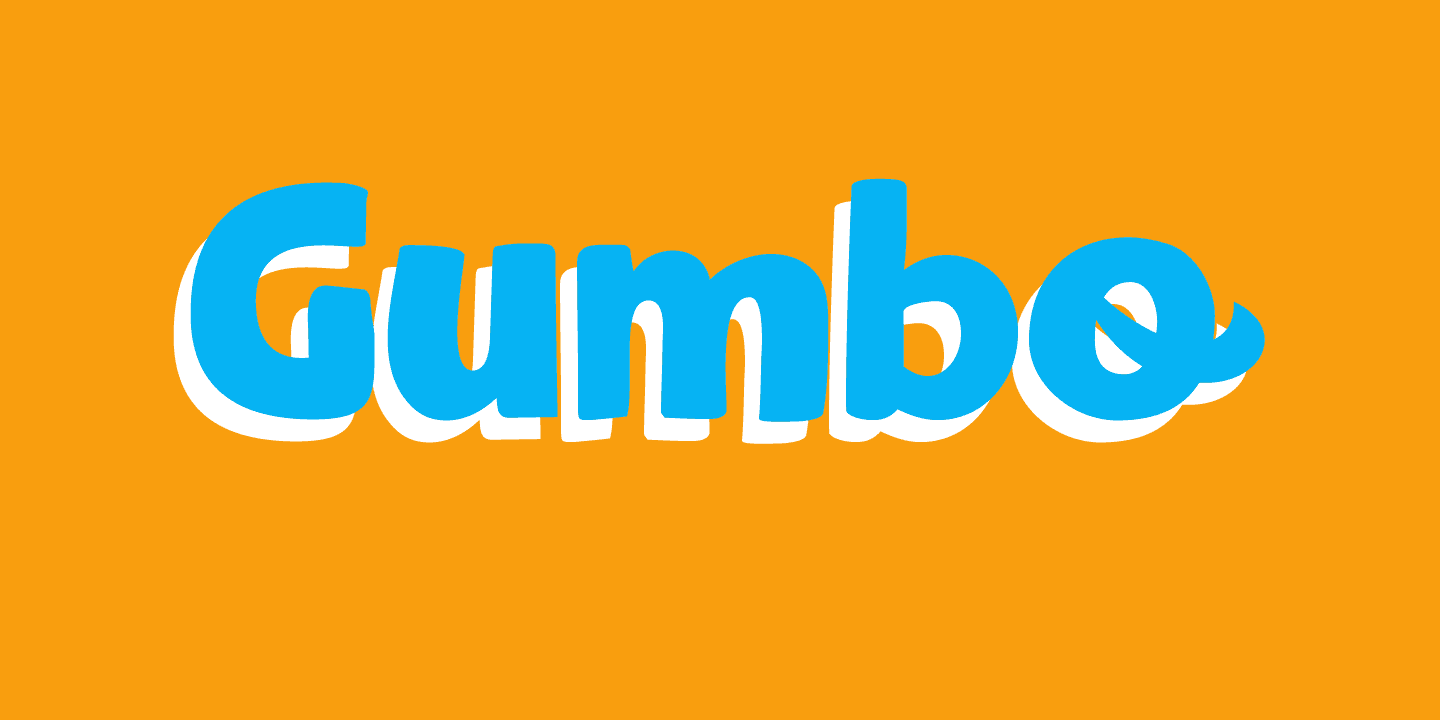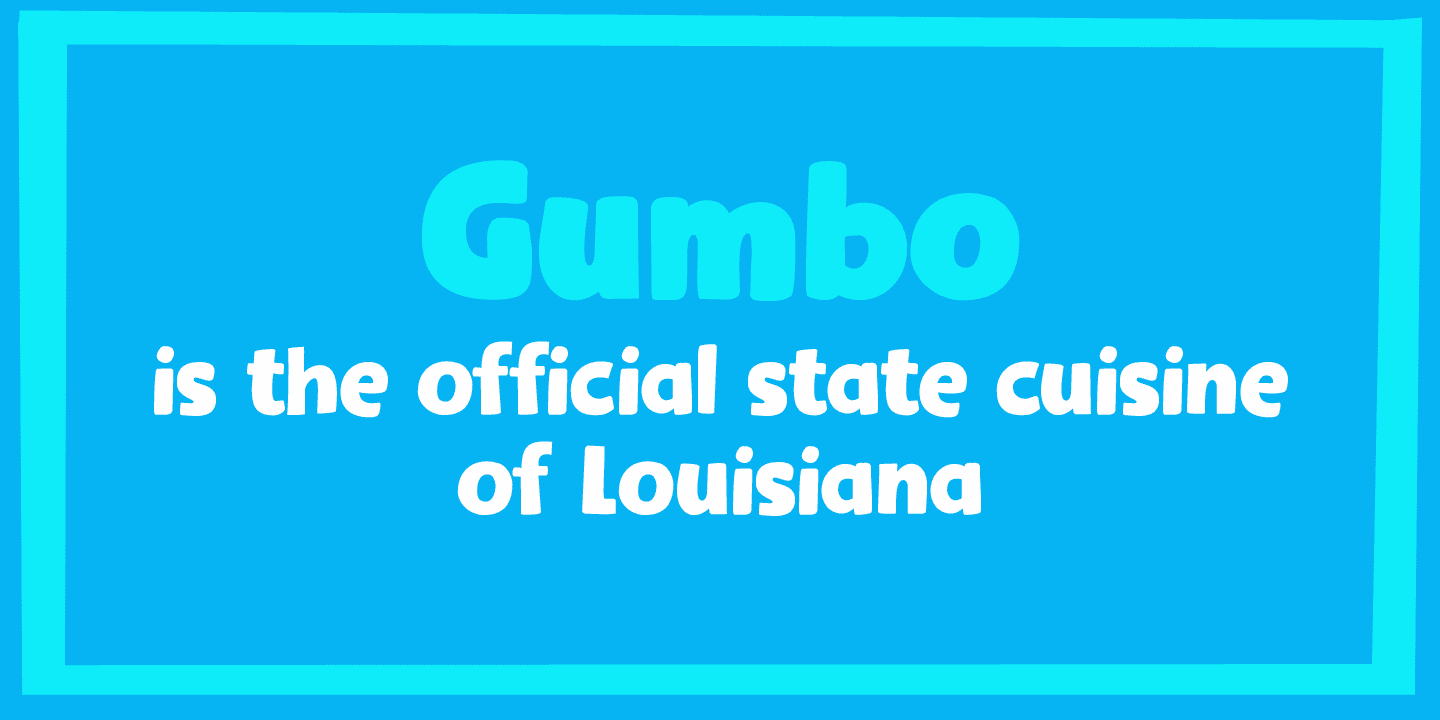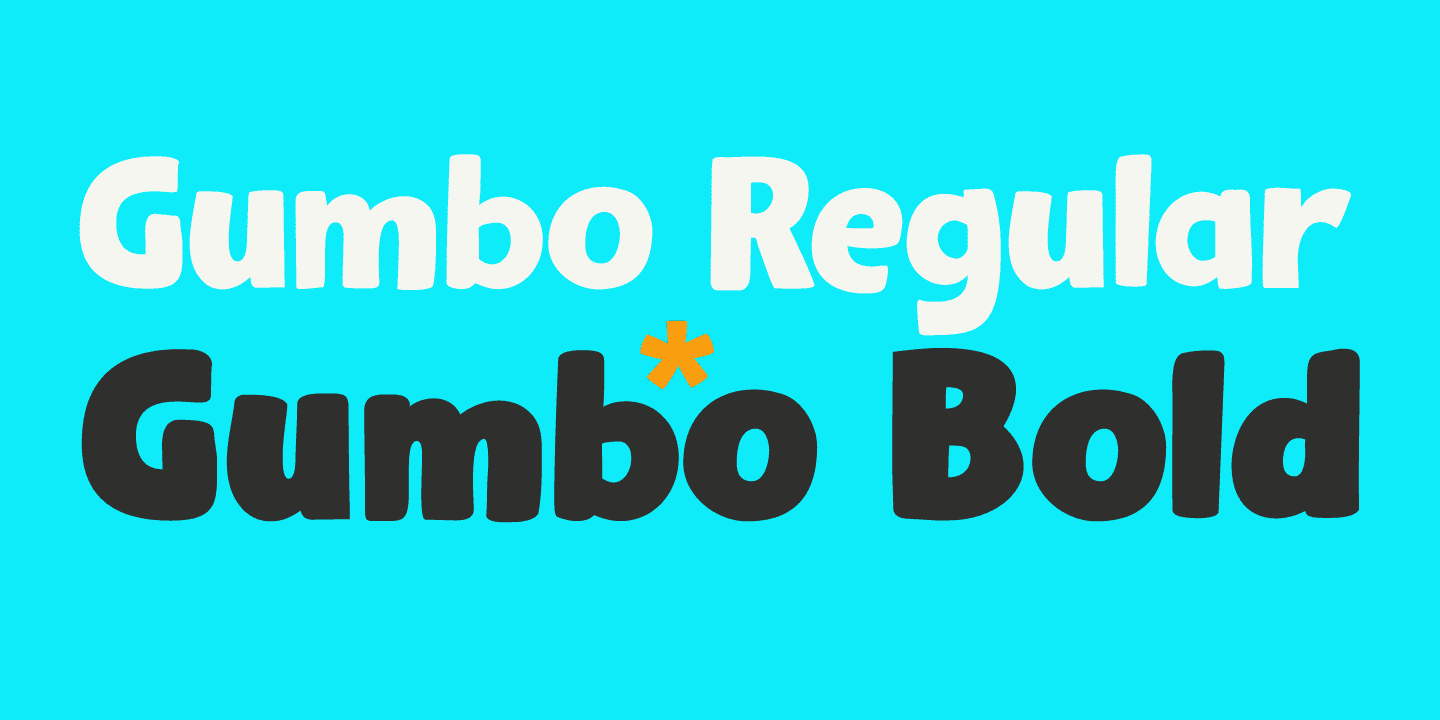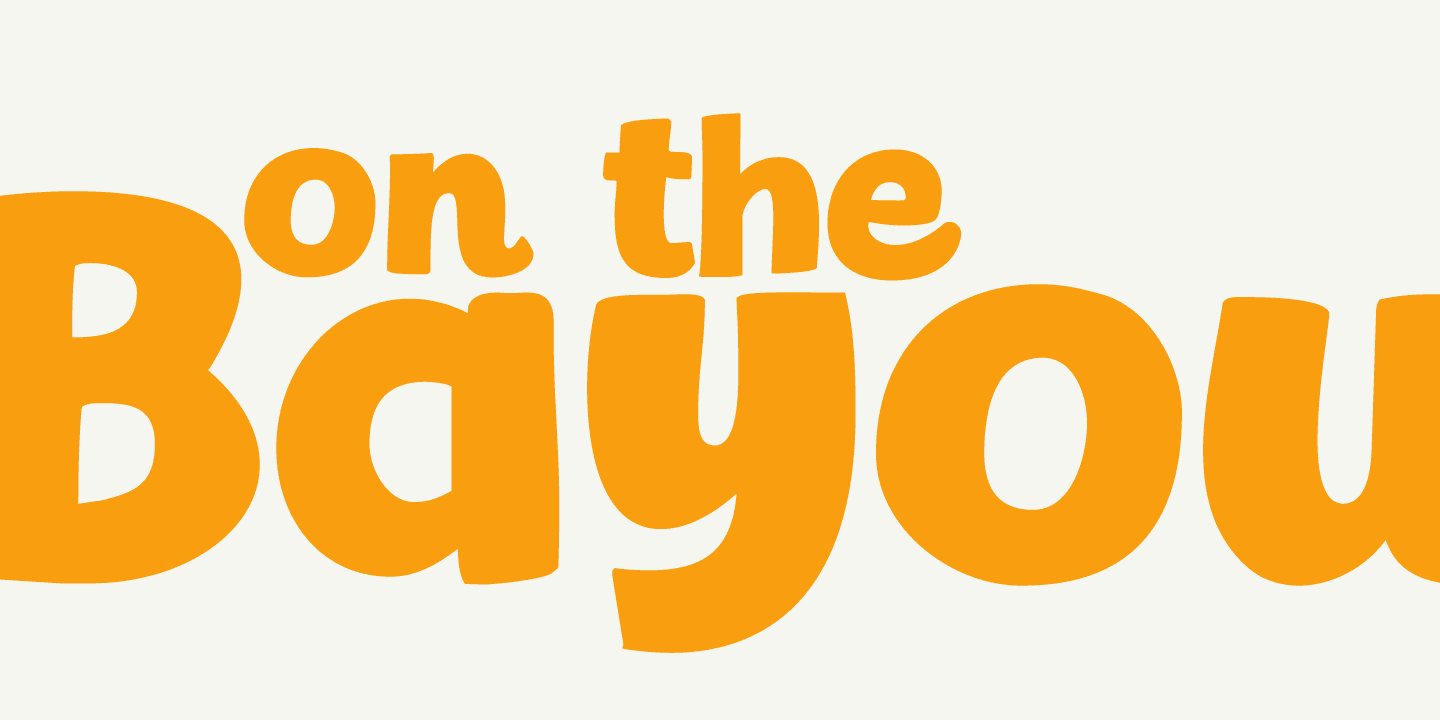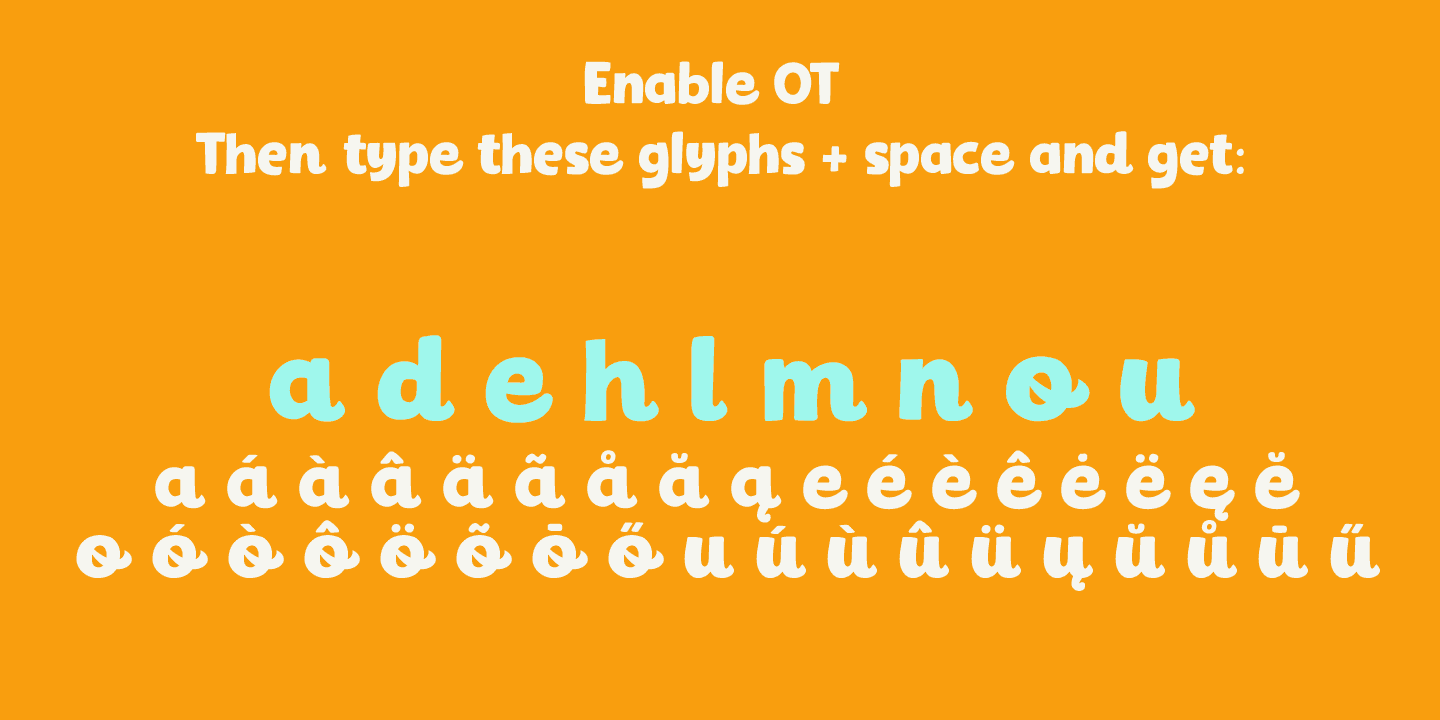
When I created this font, I had to think of Gumbo - a dish I have never made. Gumbo is a handmade display font that comes in a rotund regular and an obese bold (with Italics). Use it for your book covers, product packaging and sticky notes. Gumbo comes with cute ‘end of word’ ligatures - just type the glyph + space and presto: you have a little swash.
As for the dish Gumbo, well, I will make that this weekend!